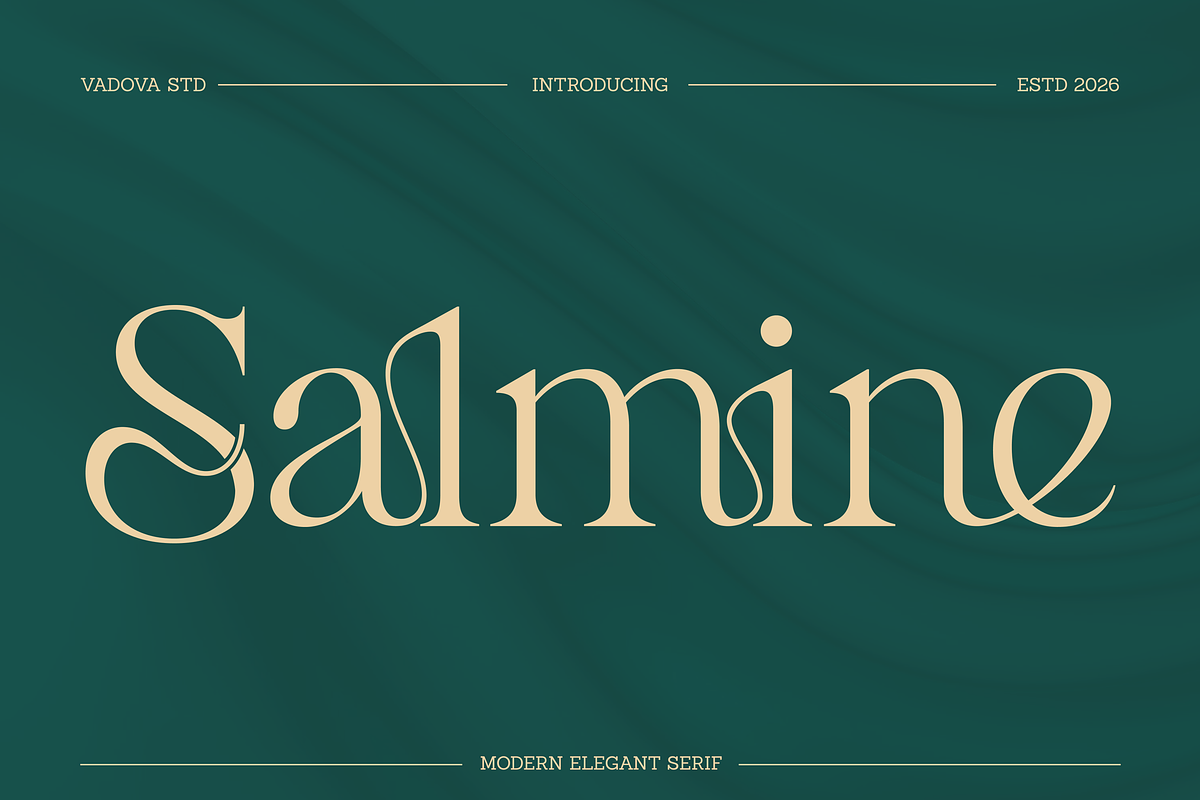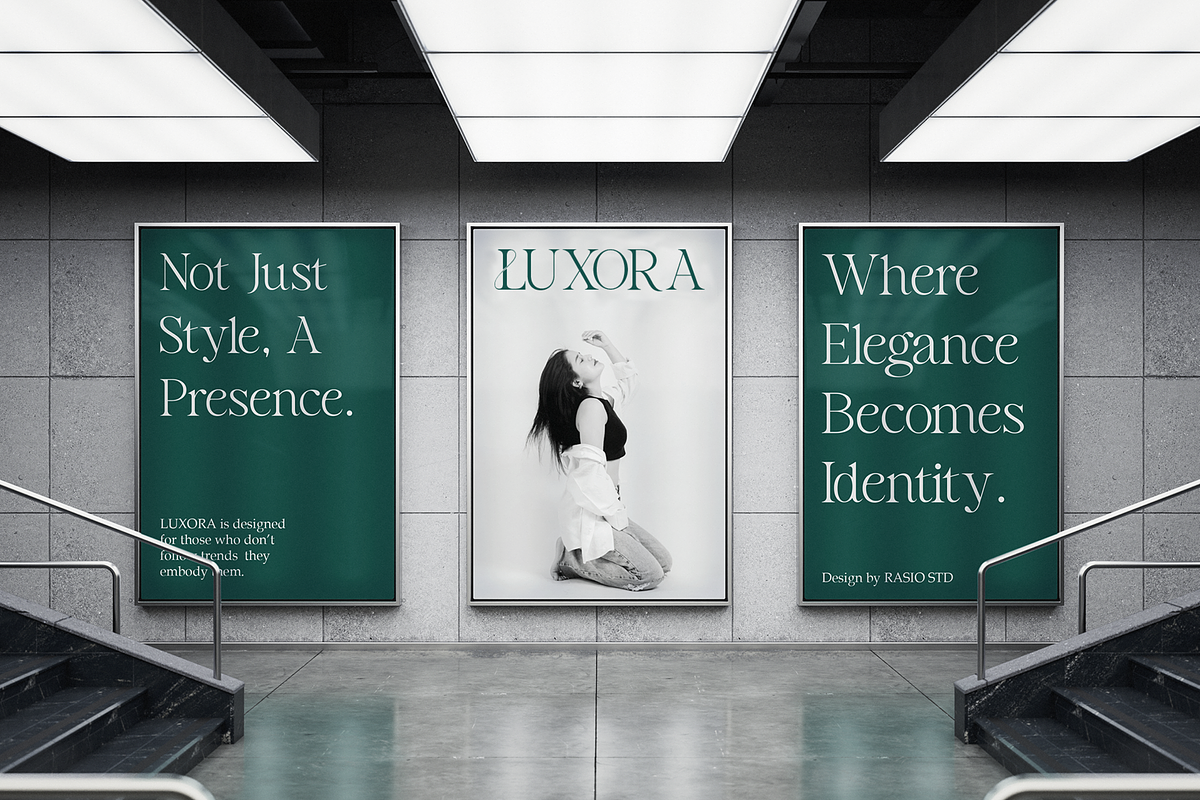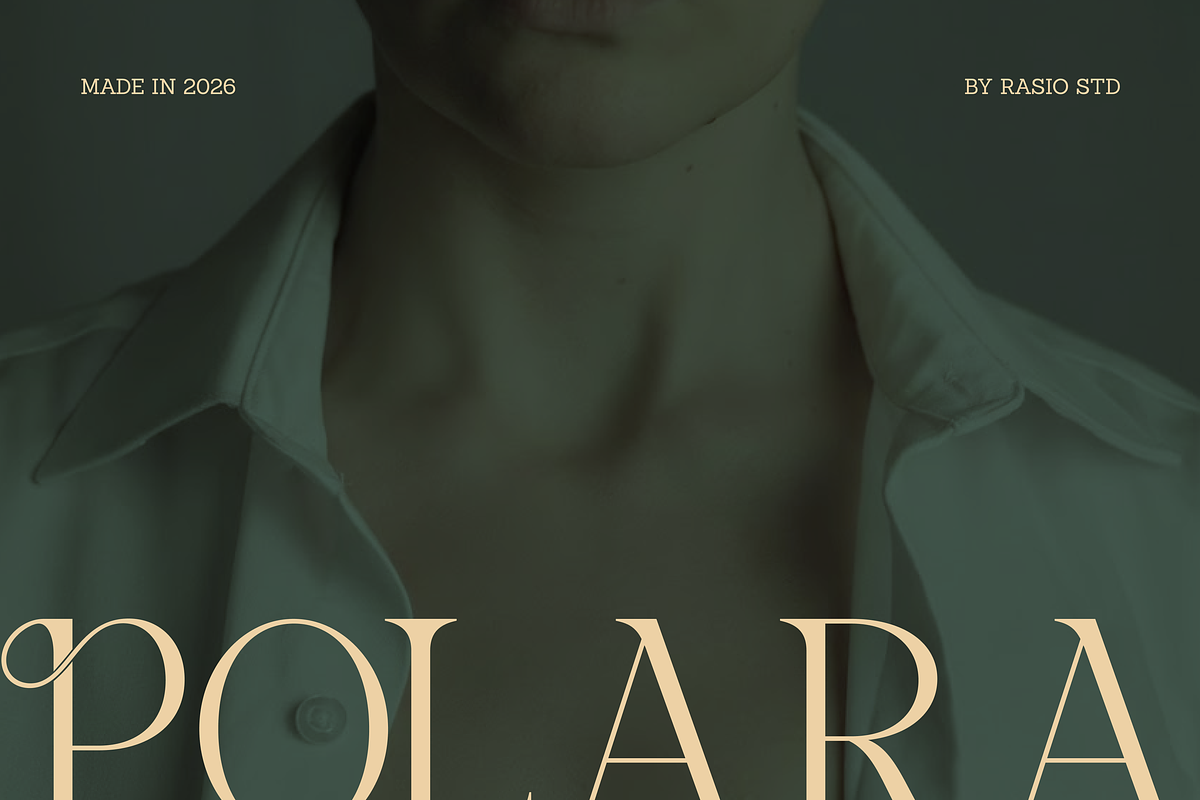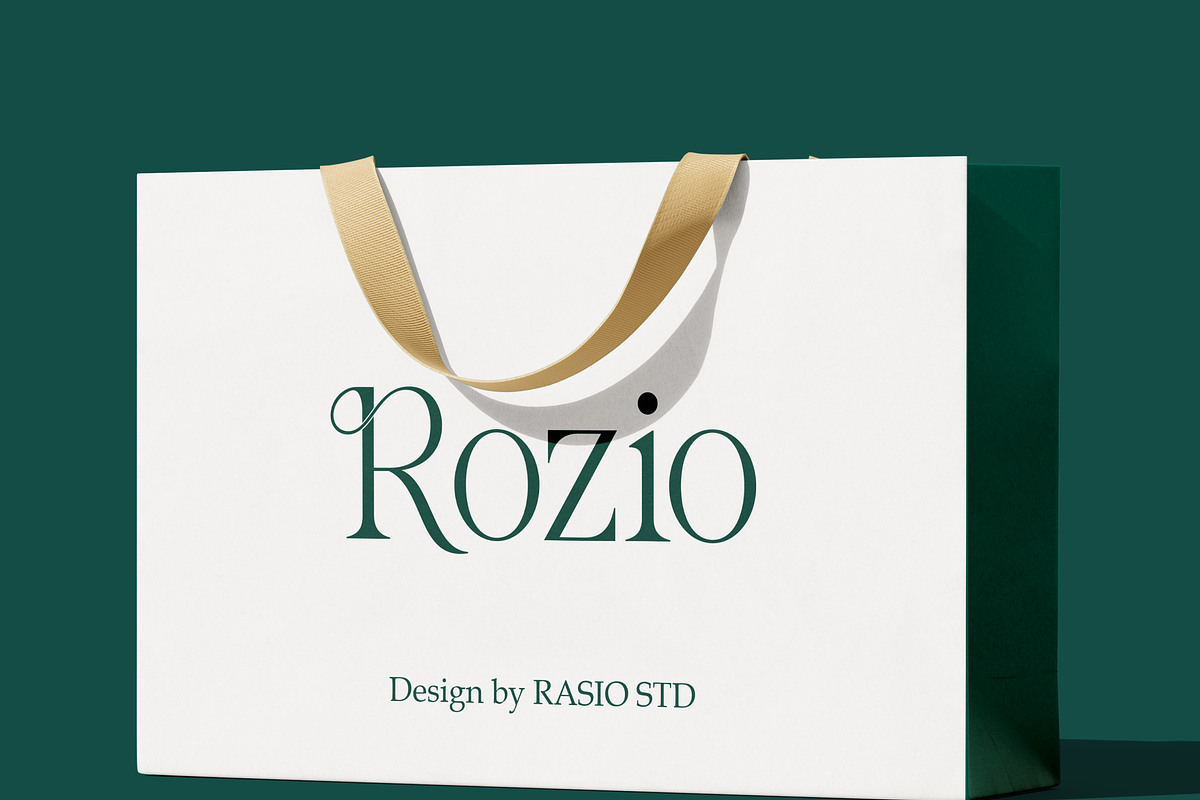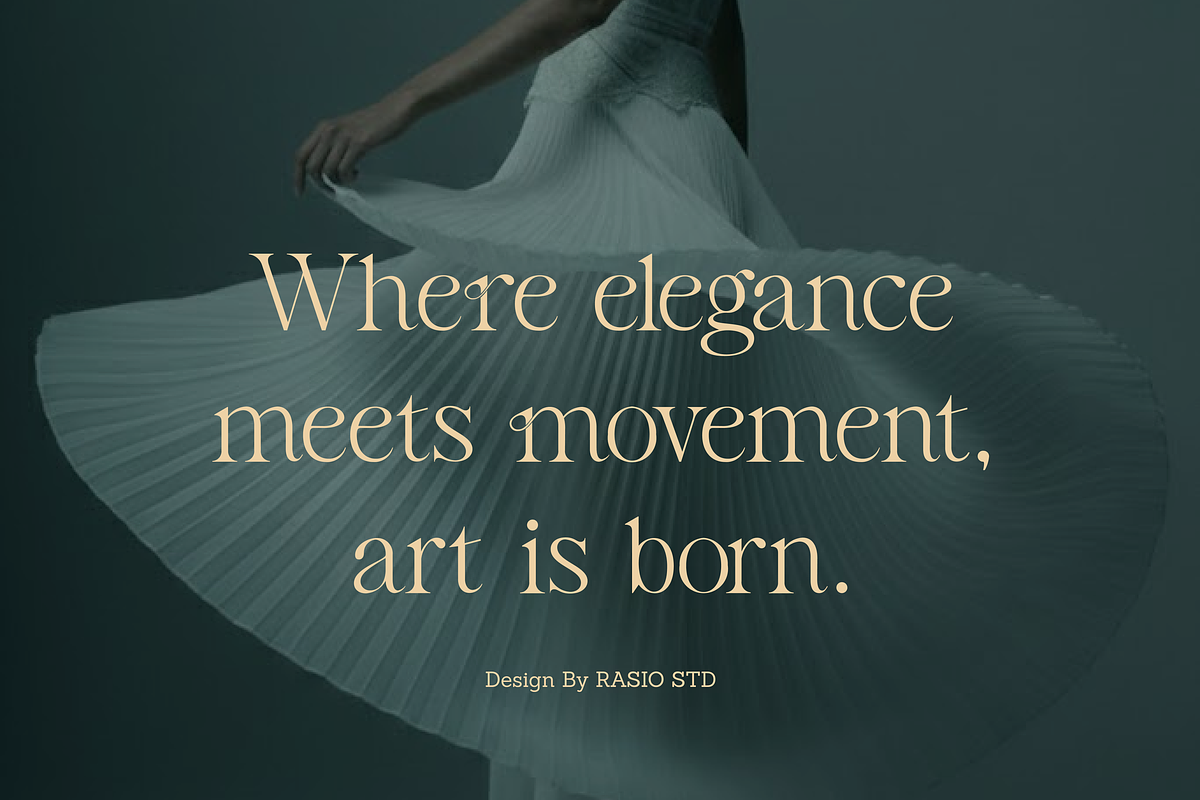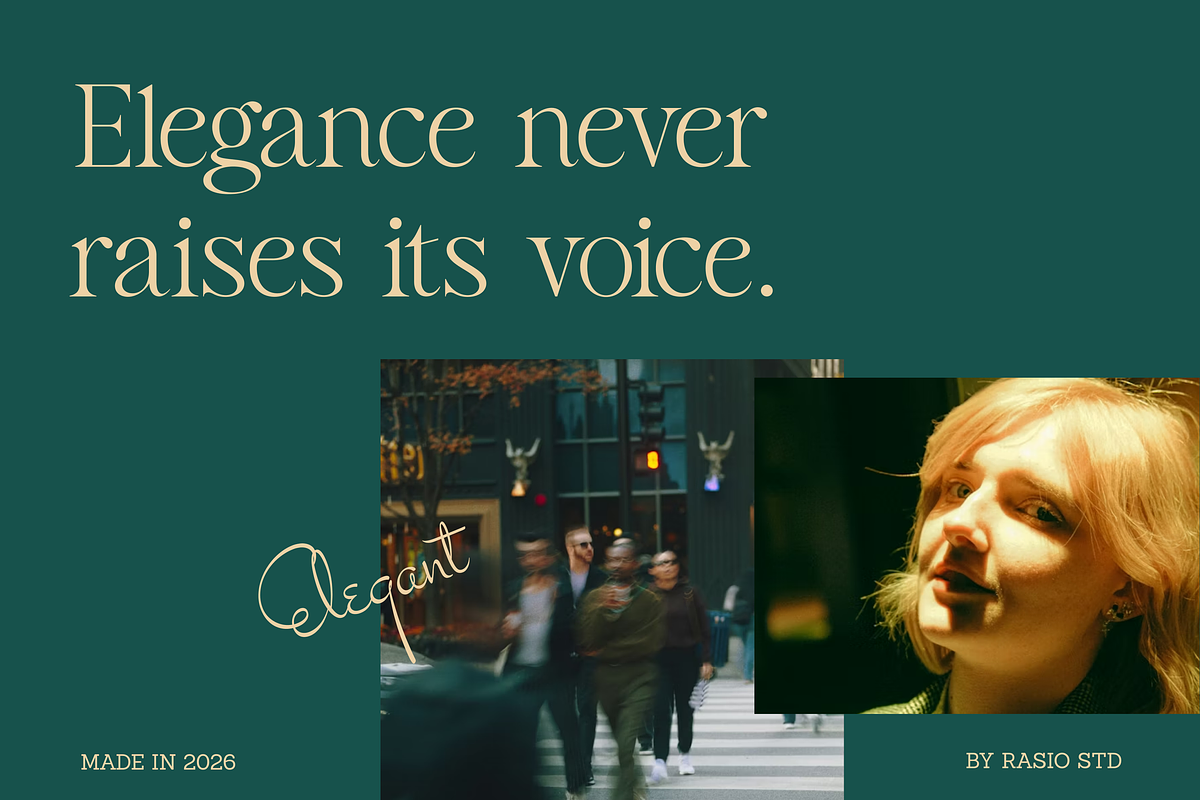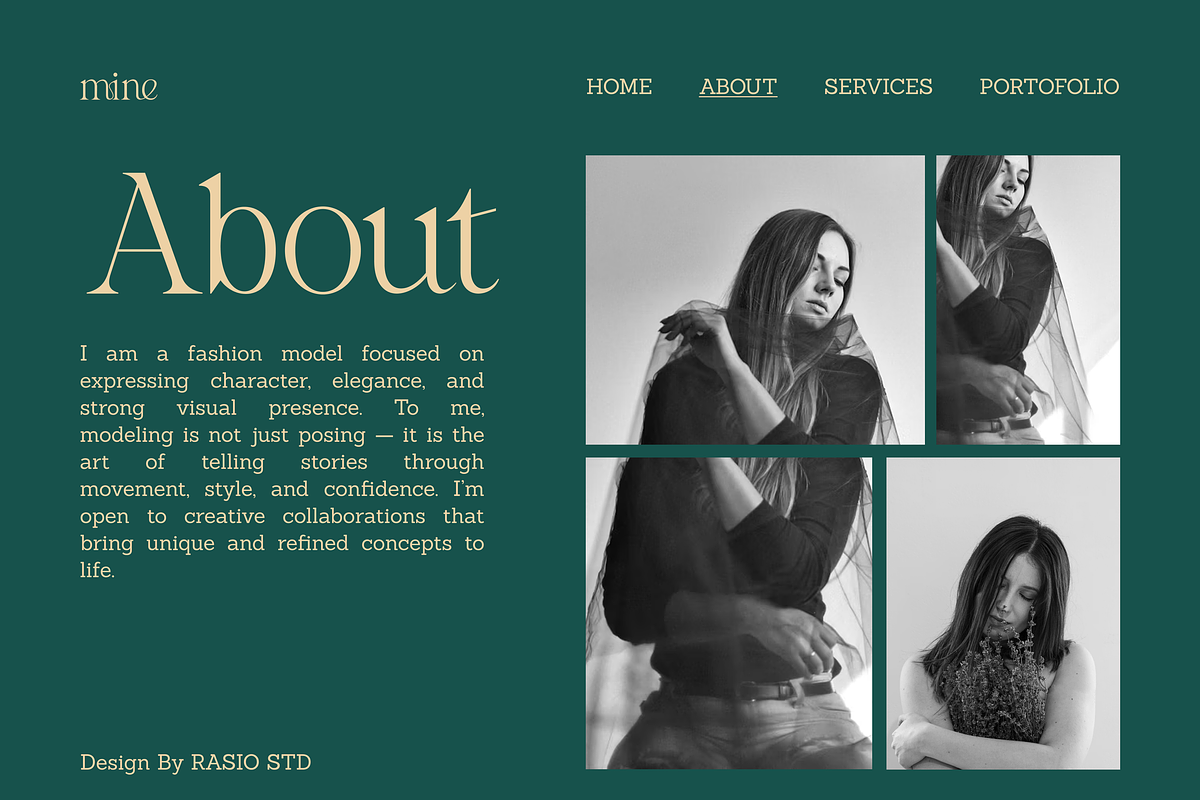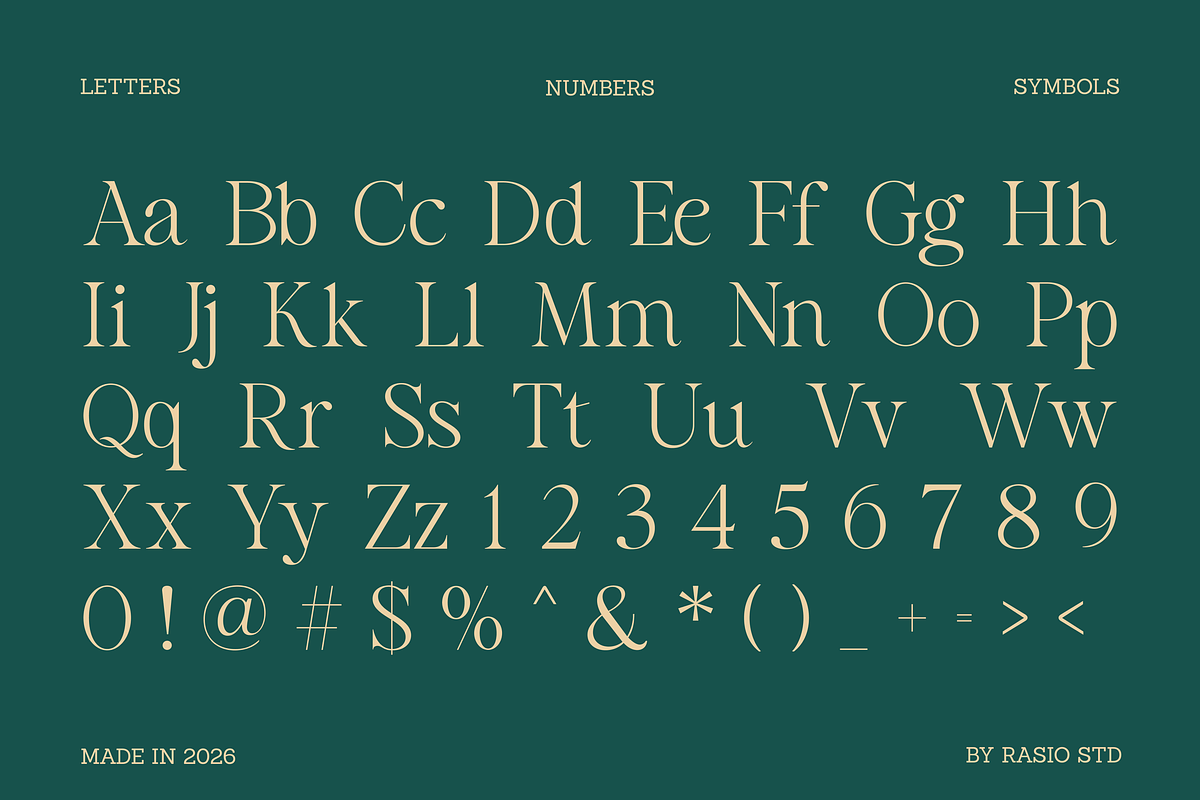
Salmine Modern Elegant Serif Font
Salmine is a modern elegant serif typeface designed to express refinement, movement, and timeless sophistication. Inspired by high-fashion editorials and graceful silhouettes, this font features high contrast strokes, sculpted curves, and delicate serifs that create a luxurious visual rhythm. Salmine is perfect for branding, editorial layouts, luxury packaging, and refined visual identities.
Salmine is ideal for luxury brands, fashion editorials, beauty packaging, boutique logos, wedding stationery, and premium marketing materials. Its elegant contrast and flowing curves make it perfect for brands that want to communicate sophistication, grace, and modern femininity while maintaining strong visual presence in headlines and logo applications.
- High-contrast serif structure with refined thick–thin transitions
- Sculpted curves and flowing letterforms inspired by graceful movement
- Delicate, sharp serifs that enhance elegance and sophistication
- Balanced proportions with a tall, airy silhouette
- Carefully adjusted spacing for impactful headlines and refined display settings
- Luxury brand identity systems seeking refined elegance
- Fashion editorials and high-end magazine layouts
- Beauty, skincare, and boutique logo design
- Wedding invitations and premium stationery
- Product packaging for cosmetics, perfume, and luxury goods
- Social media campaigns with a sophisticated aesthetic